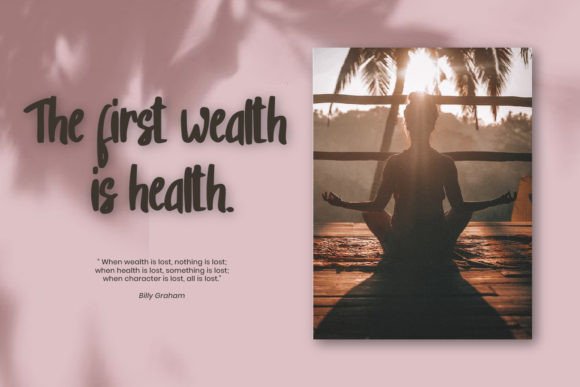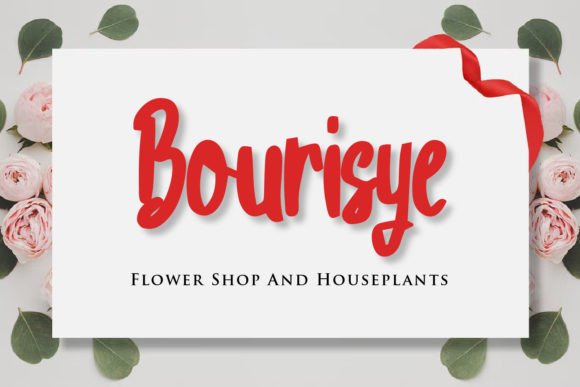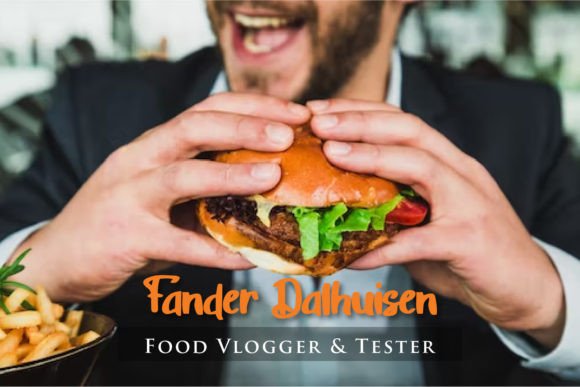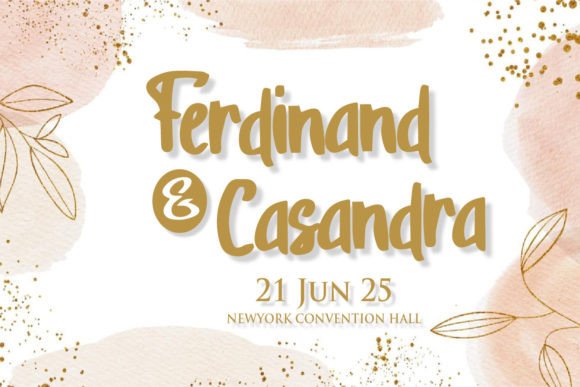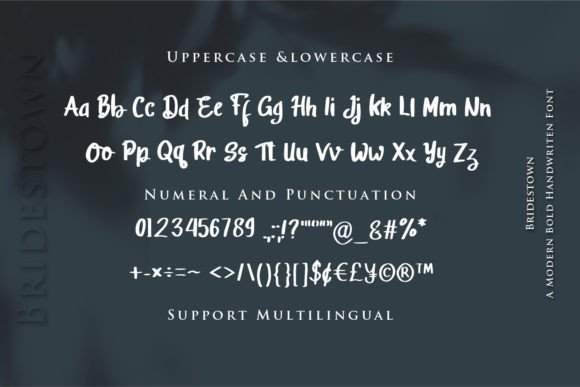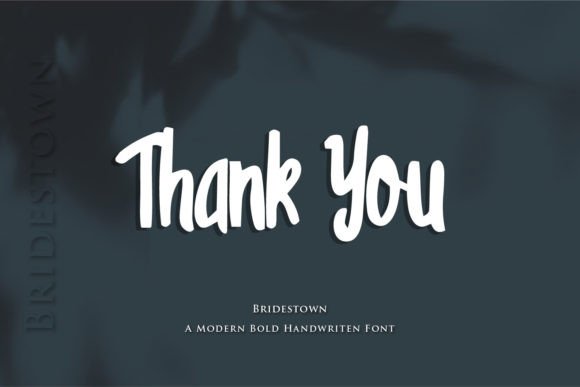
The Perfect Script for Your Next Design Project
Remember that moment when you’re working on a design project, and you just can’t seem to find the right font to bring your idea to life? You’ve got your color palette, your layout, and your message, but something’s missing. That’s when you stumble upon the perfect script font – the one that makes your design pop and adds a touch of personality to your work.
Enter the Bridestown Font, a cool and bold handwritten script font that’s guaranteed to elevate your designs. With its clean and smooth vibe, it’s the perfect addition to any project, from wedding invitations to social media graphics. As a designer, you know how hard it can be to find the right font to match your brand’s tone and style, but with Bridestown Font, you can rest assured that you’ve found a winner.
Bridestown Font Key Features
- Character Count: The font contains over 900 characters, including uppercase and lowercase letters, numerals, punctuation marks, and special characters.
- Unique Characteristics: Bridestown Font features a modern calligraphic design with elegant, flowing lines and subtle flourishes, making it perfect for wedding invitations, greeting cards, and other special occasions.
Bridestown Font Review
As a designer, I was excited to dive into the Bridestown font. I have to say, it’s a unique and charming font that can add a touch of elegance to any design project. ✨ Here are some things that work well:
- Beautiful script-style lettering: The Bridestown font features beautiful, flowing script-style lettering that’s perfect for wedding invitations, stationery, or any design that needs a touch of whimsy.
- Multiple font weights: The font comes in a range of weights, from light to bold, giving you plenty of options to suit your design needs.
- High-quality vector files: The font is available in high-quality vector files, making it easy to scale and manipulate without losing any of its delicate details.
However, as with any font, there are some limitations to be aware of: ⚠️
- Not ideal for body text: The Bridestown font is best used for headings, titles, and other design elements where you want to add a touch of elegance. It’s not ideal for large blocks of body text, as it can be difficult to read.
- Limited language support: The font may not be as versatile as some other fonts, with limited language support and no Cyrillic or Greek characters.
Overall, I’d say the Bridestown font is a great choice for designers who want to add a touch of elegance to their projects. It’s perfect for wedding invitations, stationery, and other design elements where you want to add a touch of whimsy. Just be aware of its limitations and use it accordingly.
Tips for Getting the Most Out of Bridestown Font
Here are some tips to help you get the most out of the Bridestown font:
- Use the font in combination with other elegant fonts to create a sophisticated look.
- Experiment with different font sizes and styles to add visual interest to your design.
- Use the font in conjunction with high-quality images to create a professional-looking design.
The Bridestown font is ideal for:
- Pair the Bridestown Font with delicate watercolor illustrations to create a dreamy atmosphere.
Project 2: Bridestown Wedding Stationery
Create stunning wedding stationery using the Bridestown Font to set the tone for a beautiful and elegant wedding celebration. This project combines typography with classic design elements to create a timeless and sophisticated look.
To use the Bridestown Font in this project, design a custom wedding invitation, save-the-date card, or wedding program using the Bridestown Font as the primary typography. You can pair the font with classic design elements such as lace, ribbons, or elegant calligraphy.